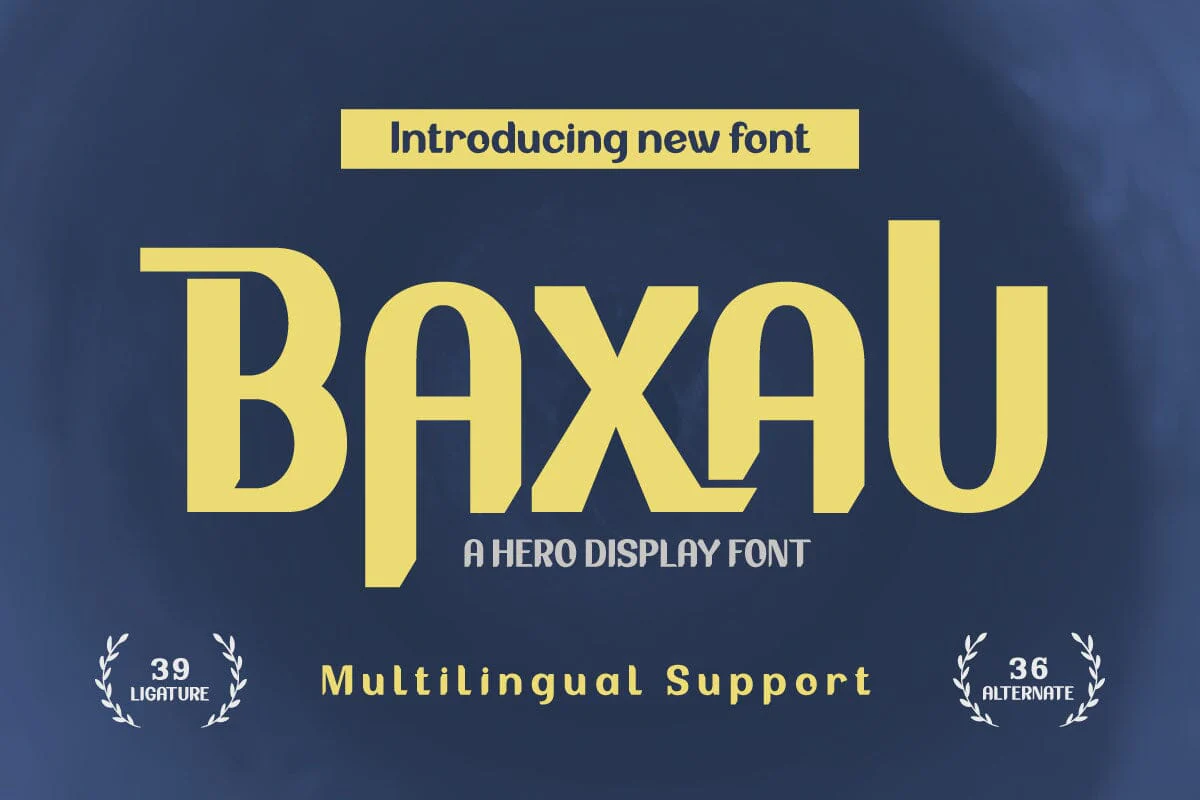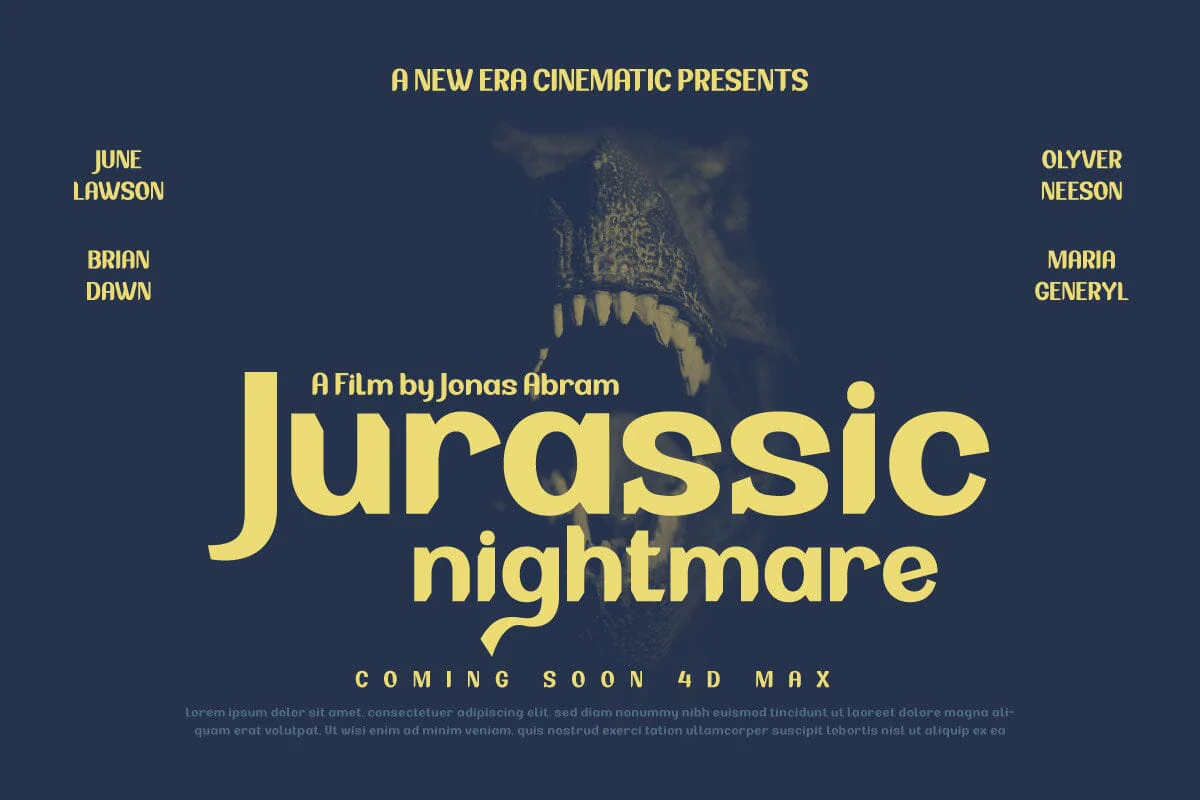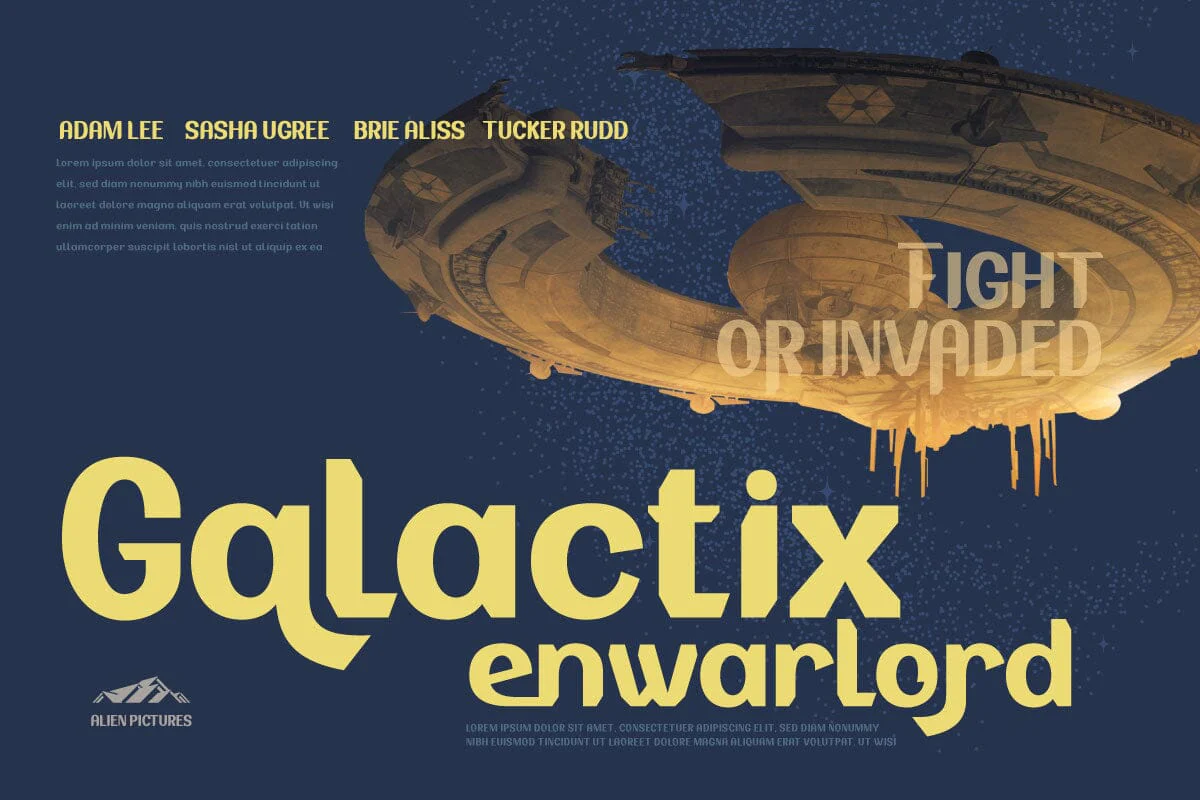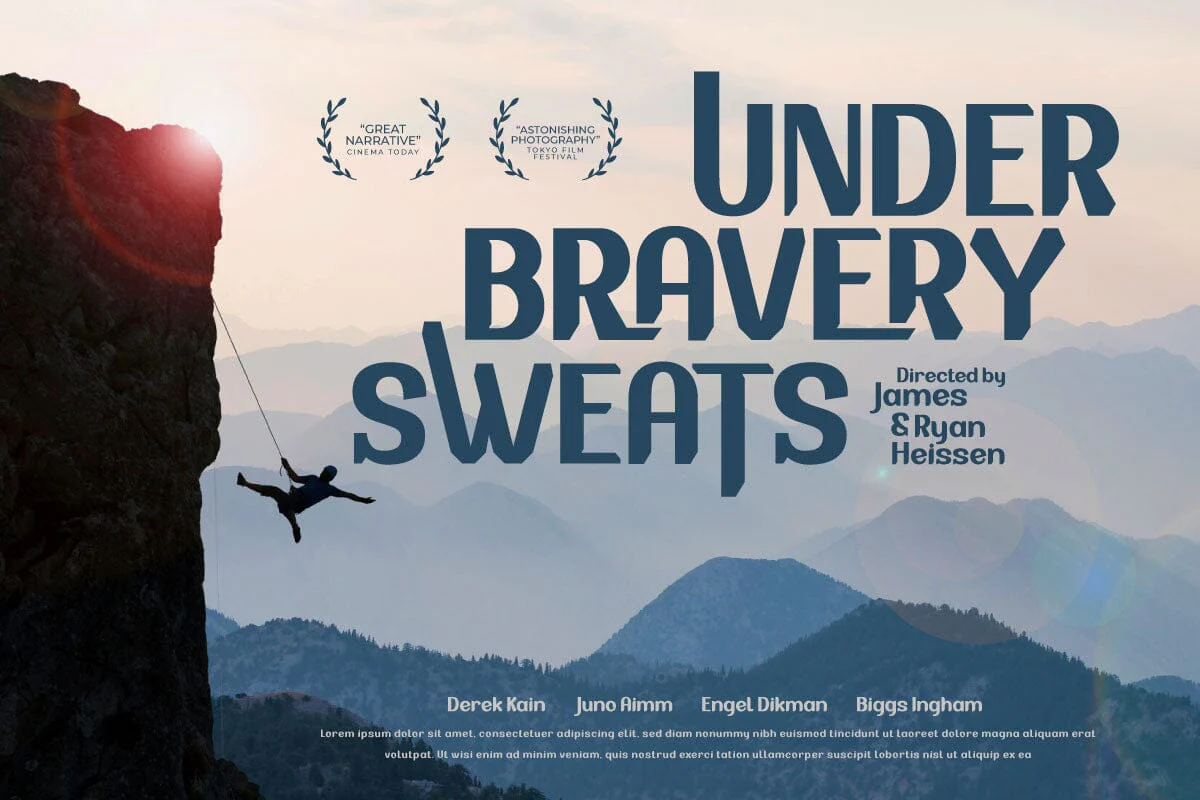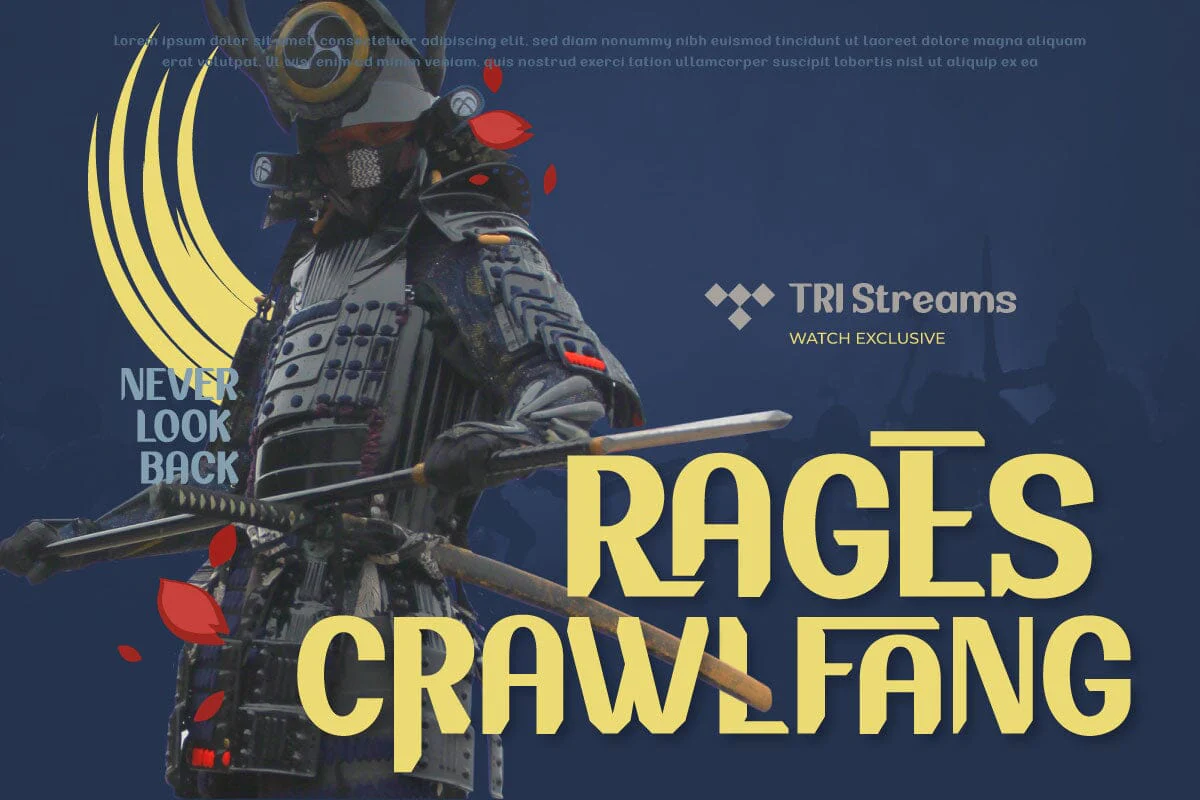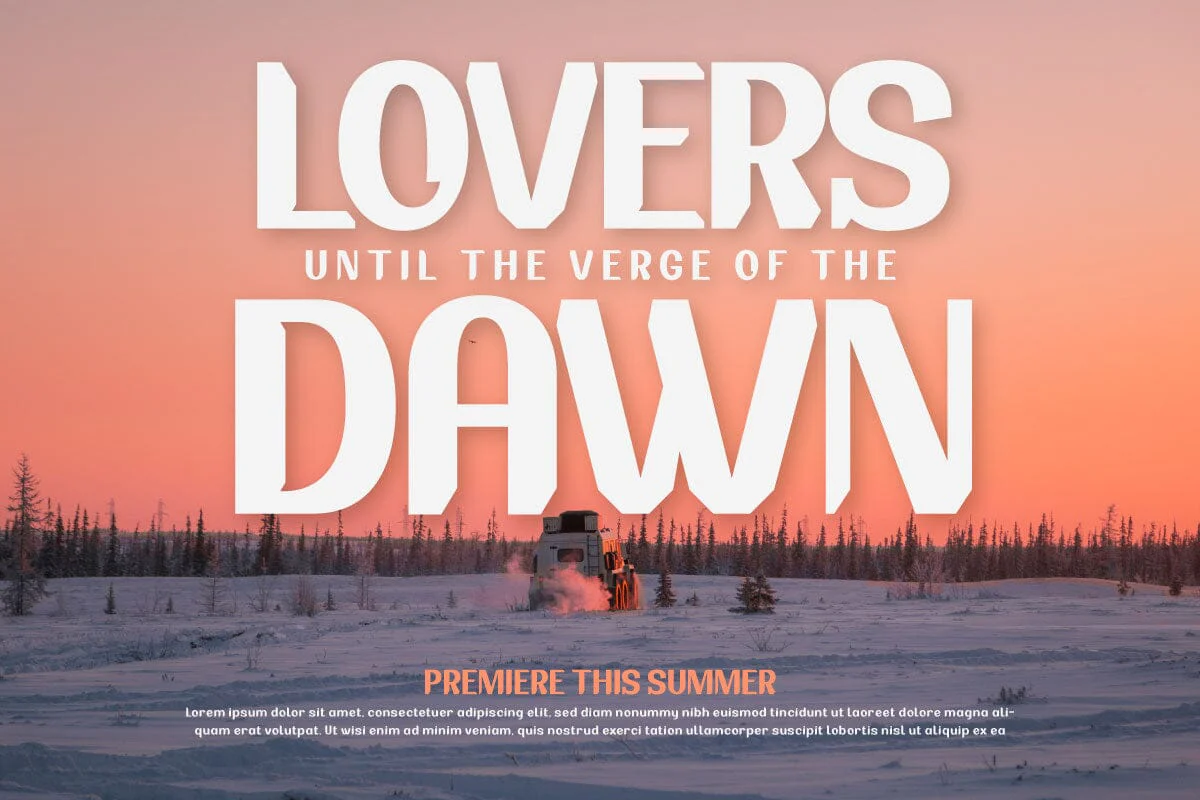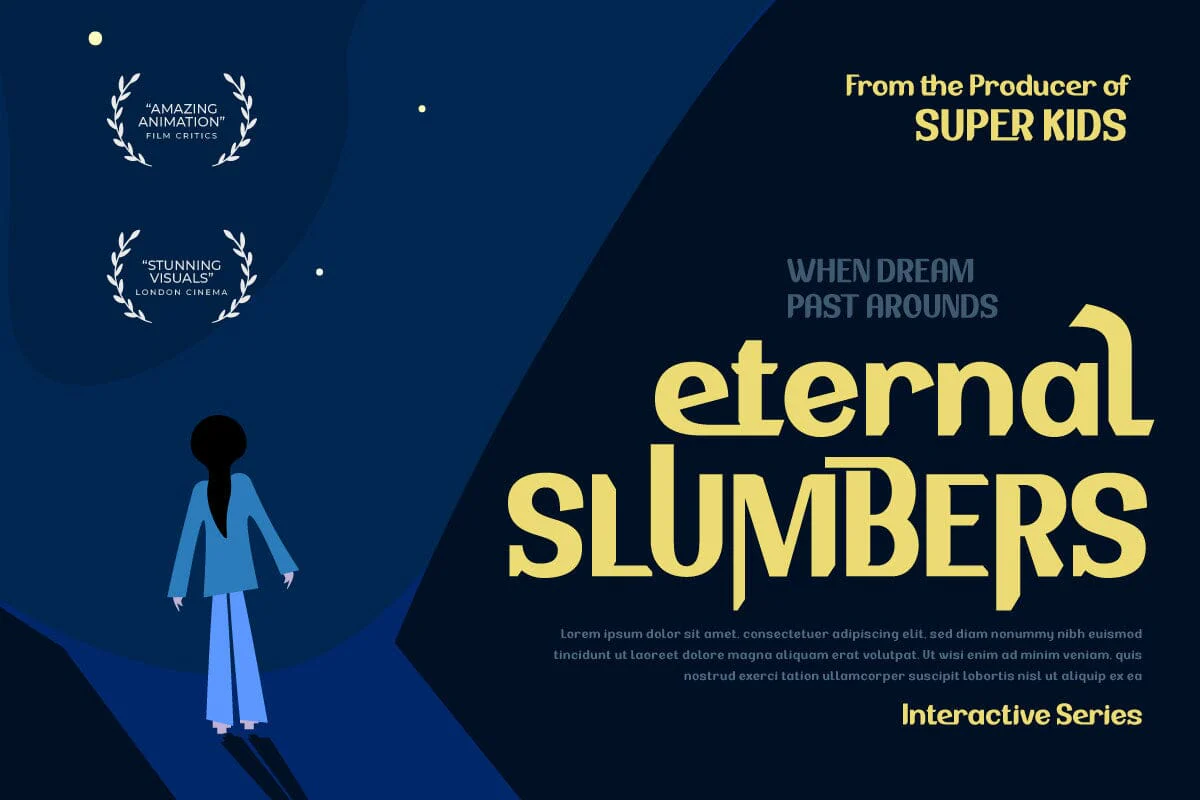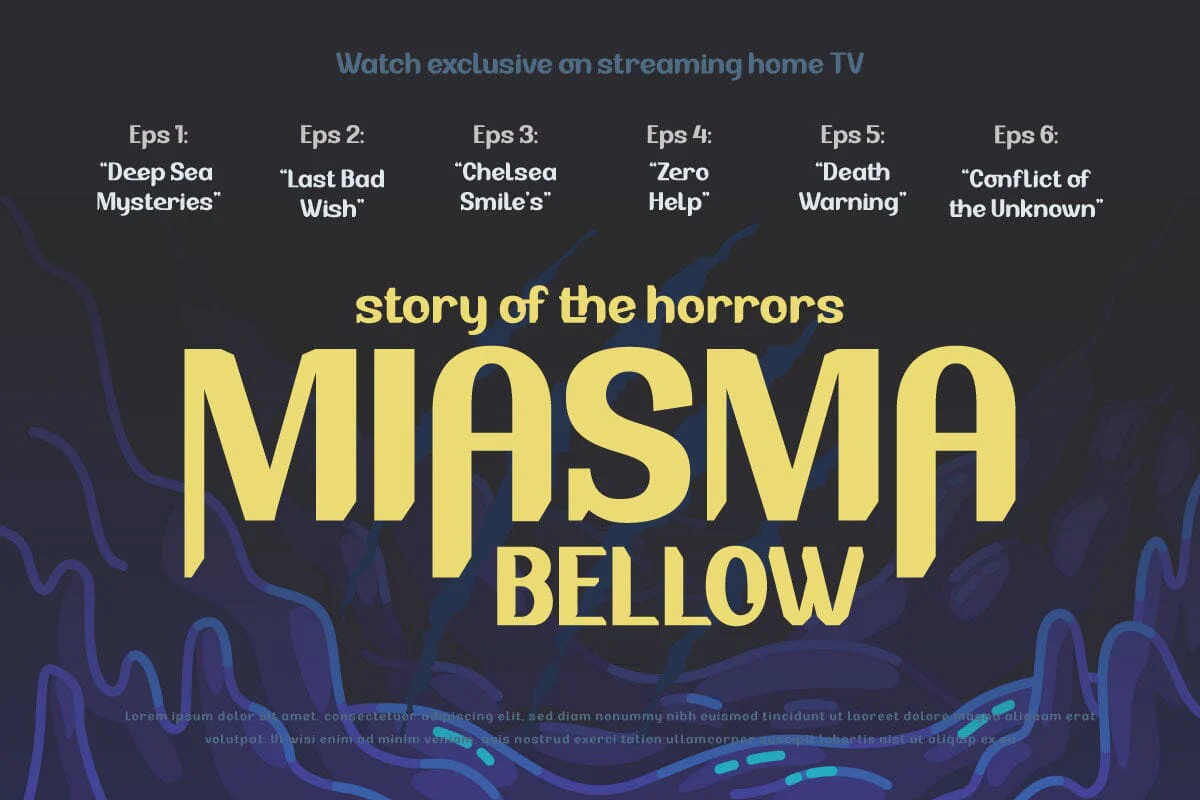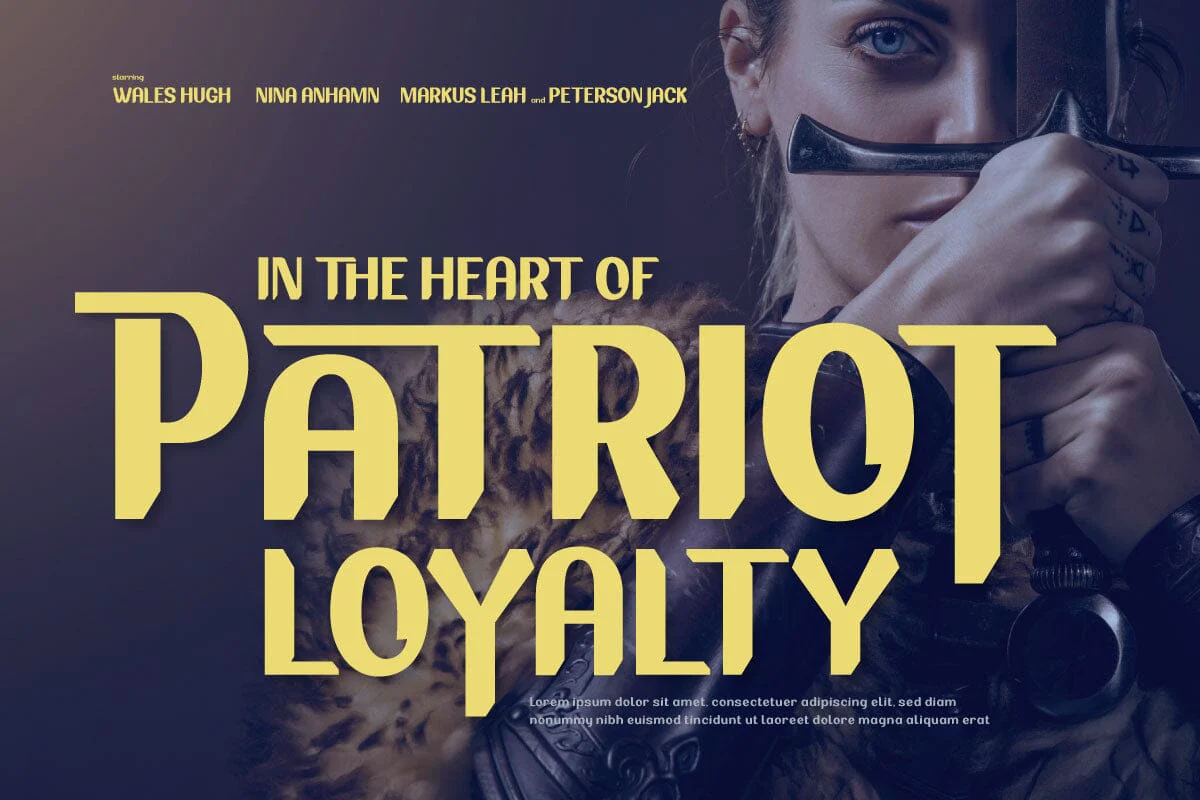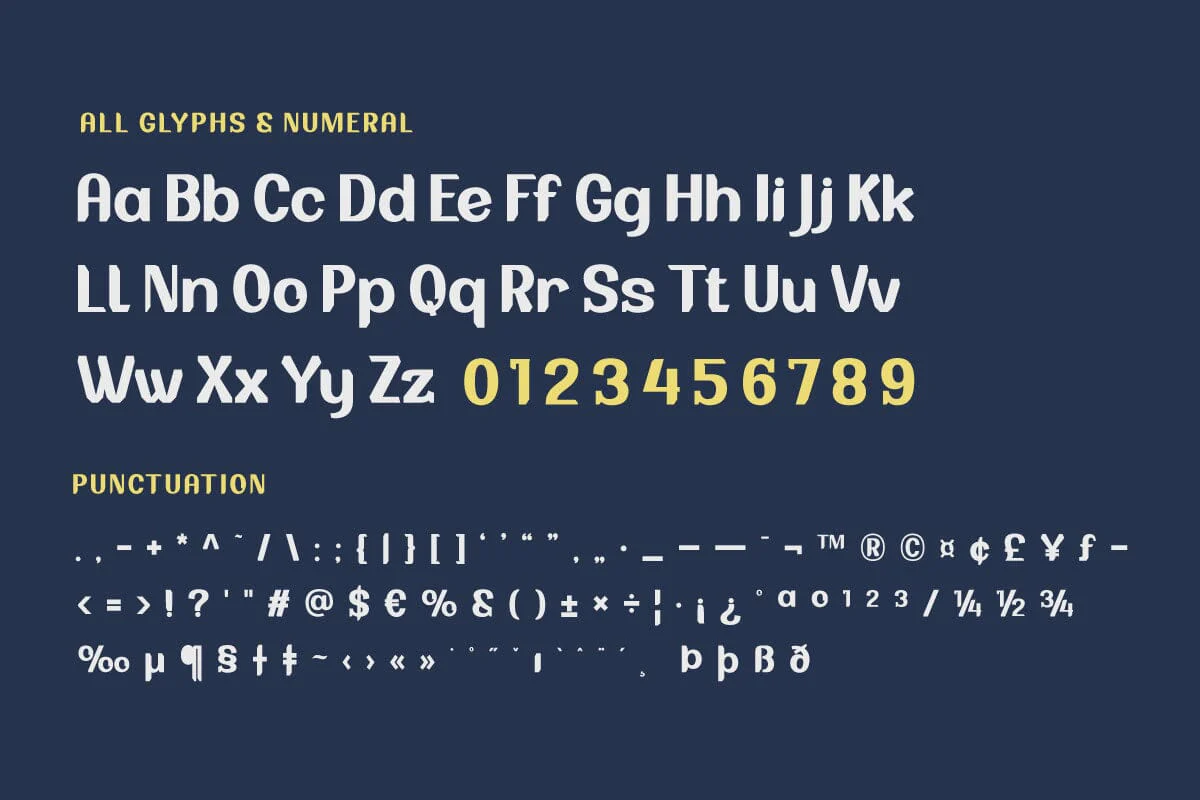
BAXAU | Display Hero Font
Baxau is a superhero-themed display font that brings strength, courage, and modernity to your projects. With a strong, bold, and bold style, this font is the perfect solution for creating an impressive and aggressive look. The Baxau font features letters that combine boldness with a modern twist, creating a fresh and energized look. Each character exudes undeniable power and charisma, delivering compelling and inspiring messages to your audience.
With features such as ligature and alternate, Baxau provides unlimited flexibility and creativity. You can combine these font elements to create unique and exciting style variations. Multilingual support also allows you to use Baxau in multiple languages, so your project can reach a global audience.
Baxau is the perfect choice if you need a font that is attractive, powerful, modern, and true to the superhero theme. With a strong message and features that give room for creative experimentation, this font will quickly grab the attention of your potential customers and make a memorable impression in no time.
Baxau is a superhero-themed display font that brings strength, courage, and modernity to your projects. With a strong, bold, and bold style, this font is the perfect solution for creating an impressive and aggressive look. The Baxau font features letters that combine boldness with a modern twist, creating a fresh and energized look. Each character exudes undeniable power and charisma, delivering compelling and inspiring messages to your audience.
With features such as ligature and alternate, Baxau provides unlimited flexibility and creativity. You can combine these font elements to create unique and exciting style variations. Multilingual support also allows you to use Baxau in multiple languages, so your project can reach a global audience.
Baxau is the perfect choice if you need a font that is attractive, powerful, modern, and true to the superhero theme. With a strong message and features that give room for creative experimentation, this font will quickly grab the attention of your potential customers and make a memorable impression in no time.